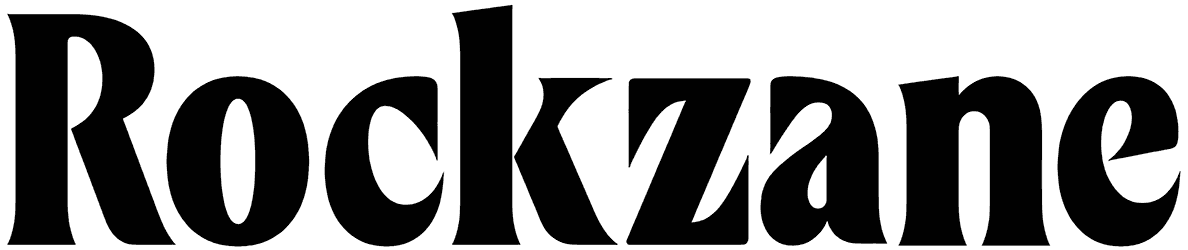
Rockzane Font
Did you know that you can just let your words point out the importance of your message if you go with a serif font like Rockzane? Even if its heavy style isn’t enough, the sharp serifs will get the job done.
Finding this distinct modern font is probably the best thing that could have happened to you, especially if you’re working on a music cover, gym poster, sports equipment branding, club signs, furniture logos, or anything else on your mind.